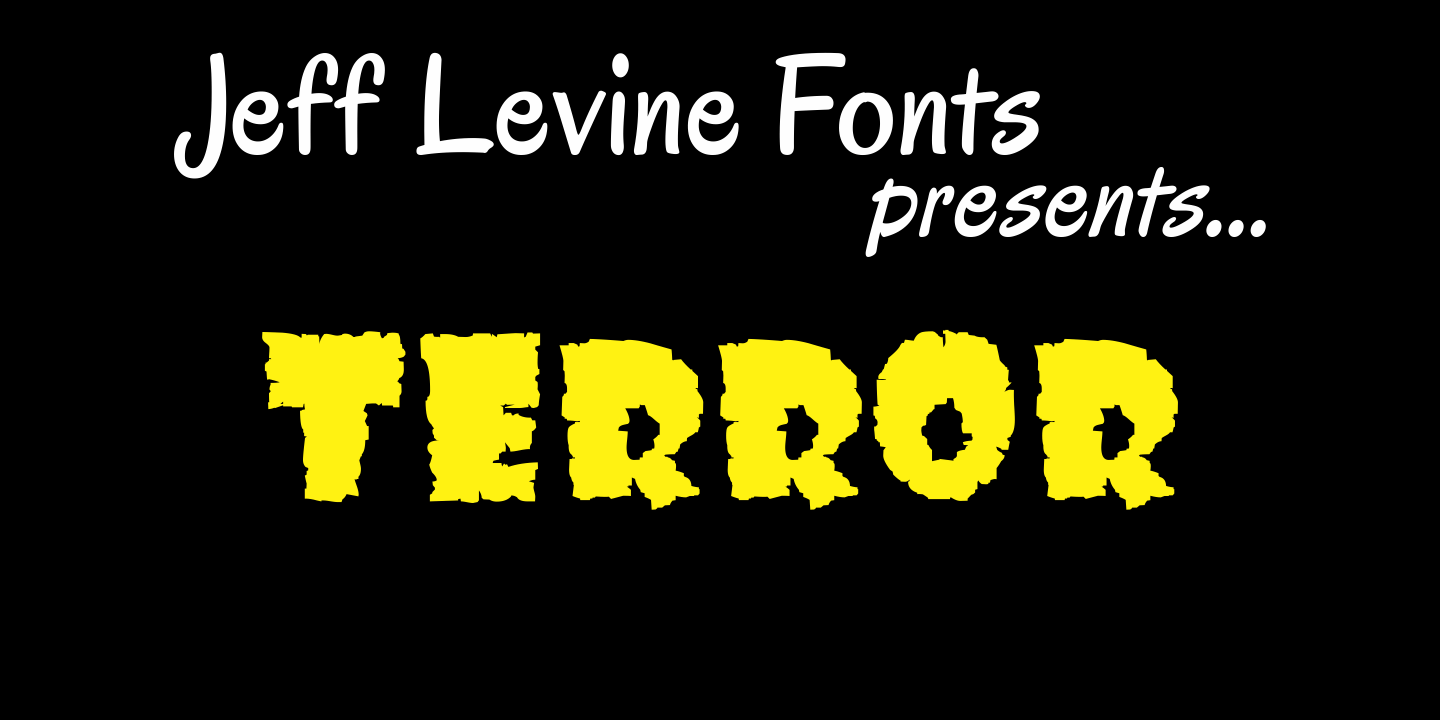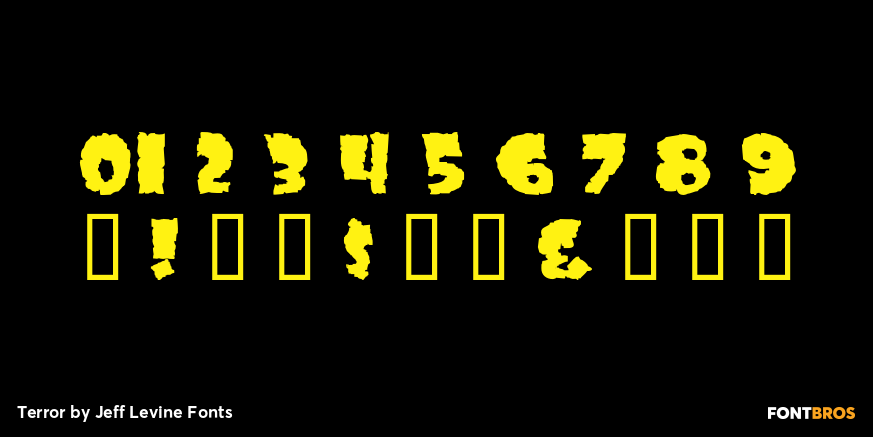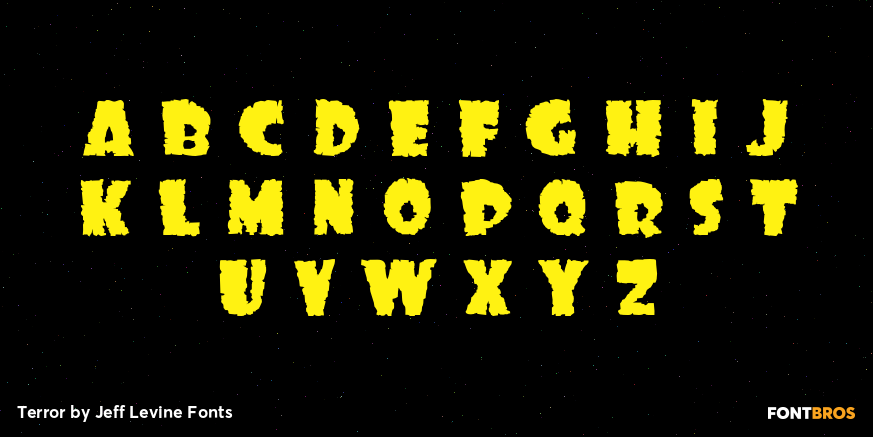
Terror
Creepy...crumbly...spooky... that's Terror JNL. Originally an experimental outline font made in the early days of Jeff Levine's typographic work, it's been revised and properly spaced for the design professional.
The font is based on Ray Larabie's 1990s freeware release "Foo" - and a hand-traced, weathered-look was applied to the letter shapes. There's no kerning and a limited character set - but Terror JNL is still perfect for any headline that depicts "things that go bump in the night"...